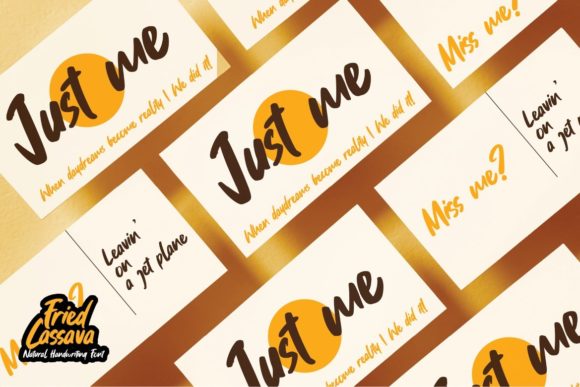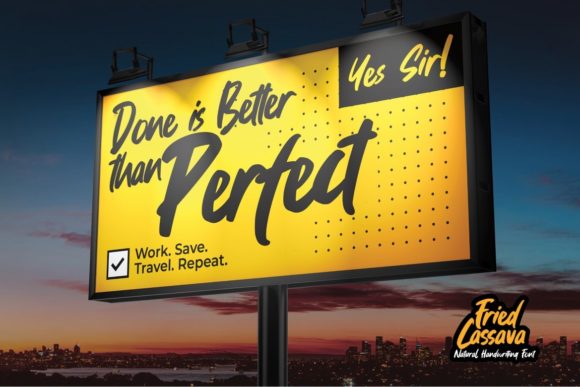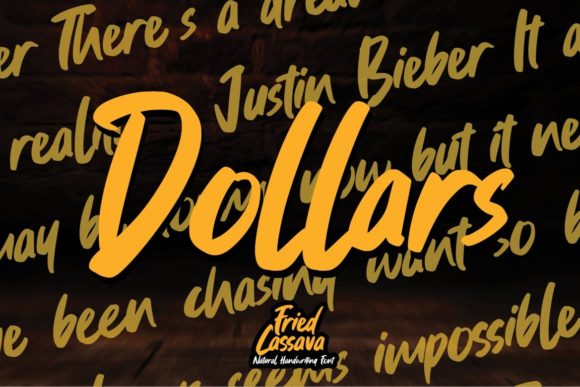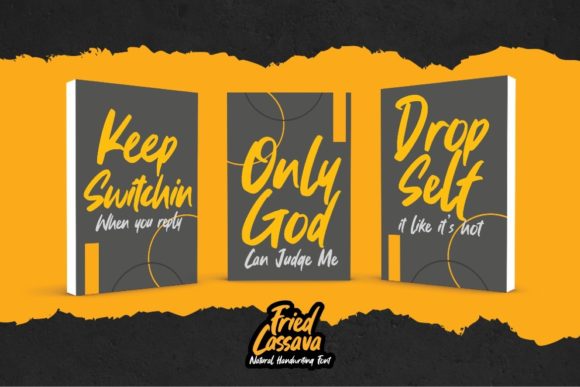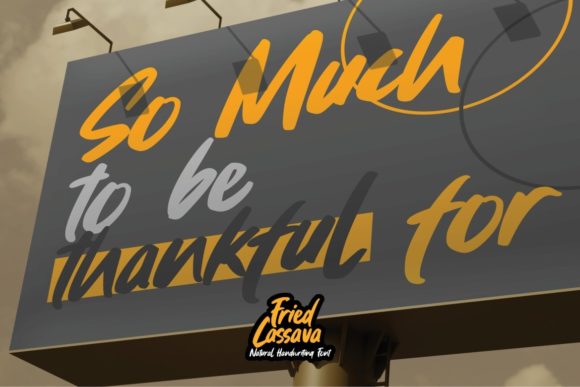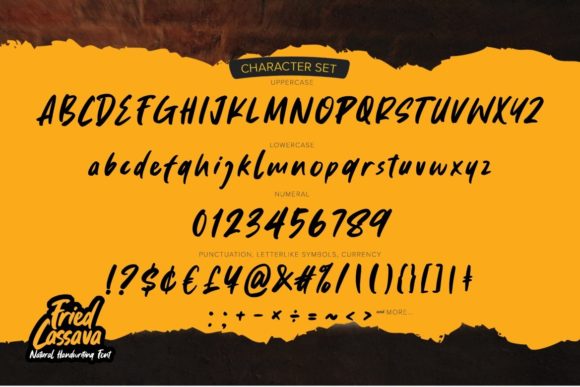
Fried Cassava Font: The Ultimate Choice for Creative Typography
Are you tired of using the same old fonts for your creative projects? Look no further! Fried Cassava Font is here to revolutionize your typography game. This bold and flowing handwritten font is the perfect choice for designers and crafters who want to add a touch of uniqueness and playfulness to their work.
What Makes Fried Cassava Font So Special?
Fried Cassava Font is a one-of-a-kind font that boasts a distinctive and stylish look. Its flowing lines and bold strokes make it perfect for creative projects that require a dash of personality. Whether you’re working on a logo, a poster, or a social media graphic, Fried Cassava Font is sure to make your design stand out from the crowd.
Key Features of Fried Cassava Font
- Unique and Playful Design: Fried Cassava Font features a bold and flowing handwritten design that’s sure to add a touch of whimsy to your creative projects.
- Highly Versatile: This font is perfect for a wide range of creative projects, from logos and posters to social media graphics and more.
- Easily Readable: Despite its bold and flowing design, Fried Cassava Font is highly readable, making it perfect for both digital and print applications.
How to Use Fried Cassava Font in Your Creative Projects
Using Fried Cassava Font in your creative projects is easy! Here are a few tips to get you started:
- Pair it with a Simple Background: Fried Cassava Font is bold and eye-catching, so pair it with a simple background to really make it pop.
- Experiment with Colors: Fried Cassava Font looks great in a variety of colors, so don’t be afraid to experiment and find the perfect hue for your project.
- Use it for Headings and Titles: Fried Cassava Font is perfect for headings and titles, but you can also use it for body text for a more playful look.
Why Designers and Crafters Love Fried Cassava Font
Designers and crafters love Fried Cassava Font for its unique and playful design. Here are a few reasons why:
- Adds a Touch of Personality: Fried Cassava Font adds a touch of personality to any creative project, making it perfect for designers and crafters who want to stand out from the crowd.
- Easy to Use: Fried Cassava Font is easy to use and compatible with multiple platforms, making it a favorite among designers and crafters.
- Highly Versatile: Fried Cassava Font is highly versatile, making it perfect for a wide range of creative projects.
In conclusion, Fried Cassava Font is the ultimate choice for creative typography. Its bold and flowing handwritten design makes it perfect for designers and crafters who want to add a touch of uniqueness and playfulness to their work. With its highly versatile design, ease of use, and compatibility with multiple platforms, Fried Cassava Font is sure to become a favorite among creative professionals.